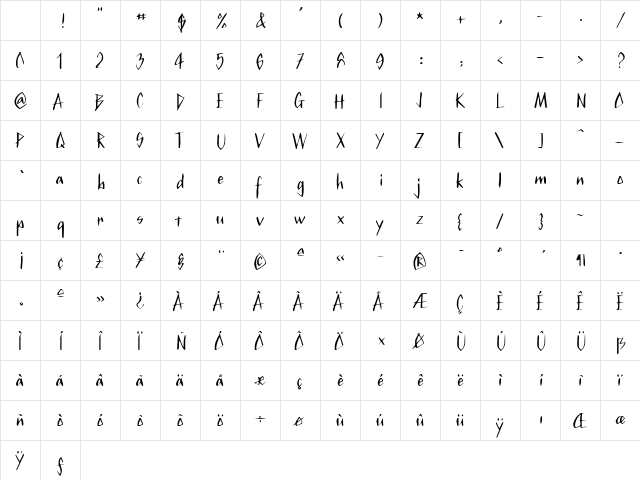
Complete KurtzExtended Regular glyph index. Displaying only characters natively supported by KurtzExtended Regular font.
KurtzExtended is a composed and adaptable typeface that performs quietly and consistently across a wide range of design contexts.